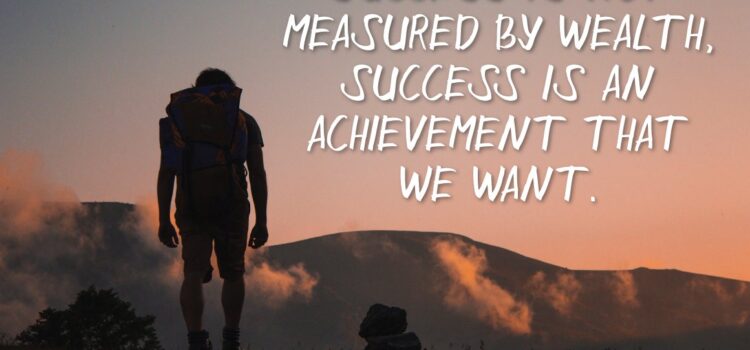
Sangkalaen Font – Free Download Introduction to Sangkalaen Font Sangkalaen is a stunning clean handwritten font created by the Atjcloth Studio. 📸 Preview Gallery 5 images 📌 Product Name Sangkalaen Font 👤 Author Atjcloth Studio 📂 Category Explore ⬇️ Download